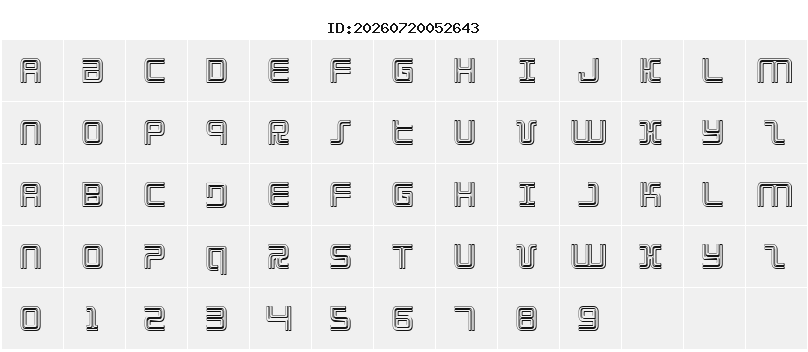
• Font Name: Election Day 3D
• Full Font Name: Election Day 3D
About Election Day 3D.ttf
Election Day 3D.ttf is a modern, elegant sans-serif font designed for ultimate readability and visual harmony. Perfect for branding, headlines, web design, and print materials.